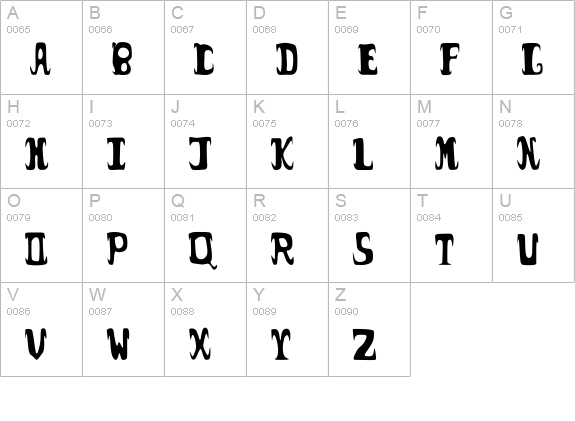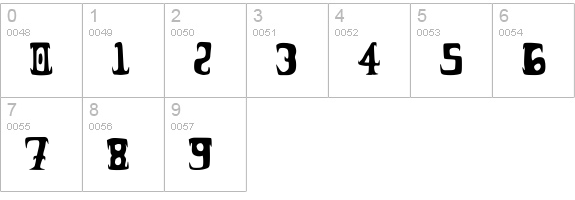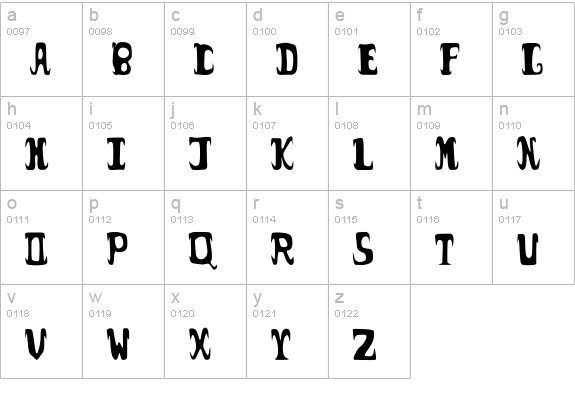
Possum Droppings font is a unique and quirky typeface inspired by the playful nature of possums. With its irregular shapes and charmingly messy appearance, this font exudes a sense of whimsy and creativity. Each character seems to have a mind of its own, making for a fun and interesting design choice. The best part? Possum Droppings font is completely free to download at FontsMarket.com. Embrace the playful spirit of possums with this delightful font and add a touch of charm to your projects. Whether you're designing posters, invitations, or social media graphics, Possum Droppings font is sure to make a statement and leave a lasting impression. Download it today and let your creativity run wild!